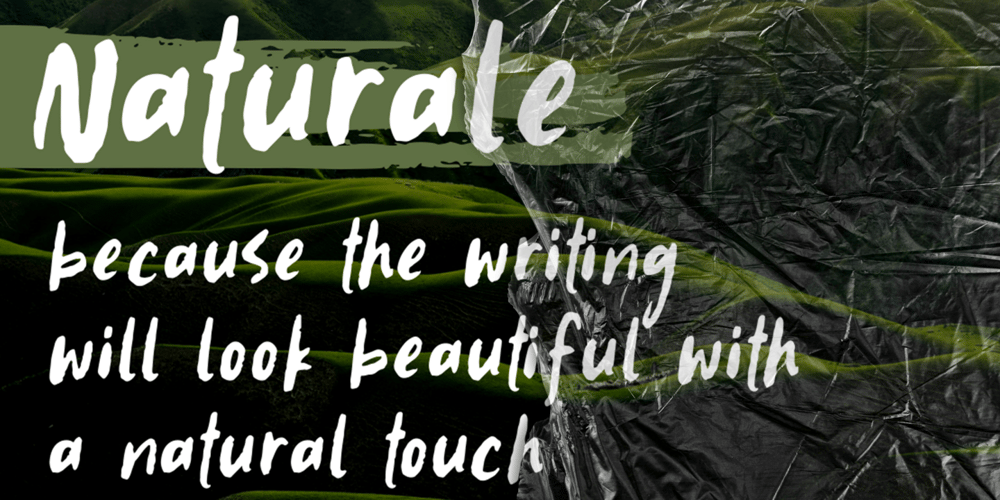
Naturale Font Family was designed by Good Java and published by Good Java Studio. Naturale contains 1 styles and family package options. Naturale born from natural and original style handdrawing font. With many glyphs you need for the great work ever. That’s available on other file from letter A-Z and a-z.Versatile for design poster, logo, branding, label, quote, headline profil, banner, t-shirt design, packaging, magazine, brochure, and many more your amazing work with this fonts.